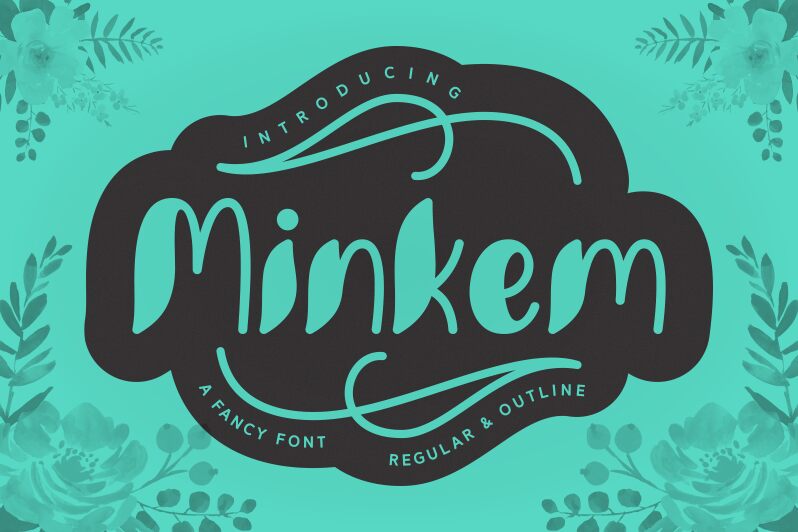
Minkem Stripe, a bold display font crafted by Rifki Syahrul Febrianoka and Situjuh Nazara of 7NTypes, exudes a captivating blend of playfulness and sophistication. This striking typeface boasts an unmistakable striped pattern, creating a visually dynamic and eye-catching aesthetic that's sure to command attention.
The font's bold strokes and unique character shapes lend it an impactful, statement-making presence, making it an excellent choice for headlines, branding, and other high-impact design applications. Its versatility allows it to seamlessly transition between digital and print mediums, ensuring a consistent and memorable visual identity.
Minkem Stripe's distinctive style makes it an ideal candidate for a wide range of design projects, from attention-grabbing logos and posters to energetic product packaging and editorial layouts. Its bold, expressive nature lends itself well to capturing the essence of modern, forward-thinking brands and creative endeavors.